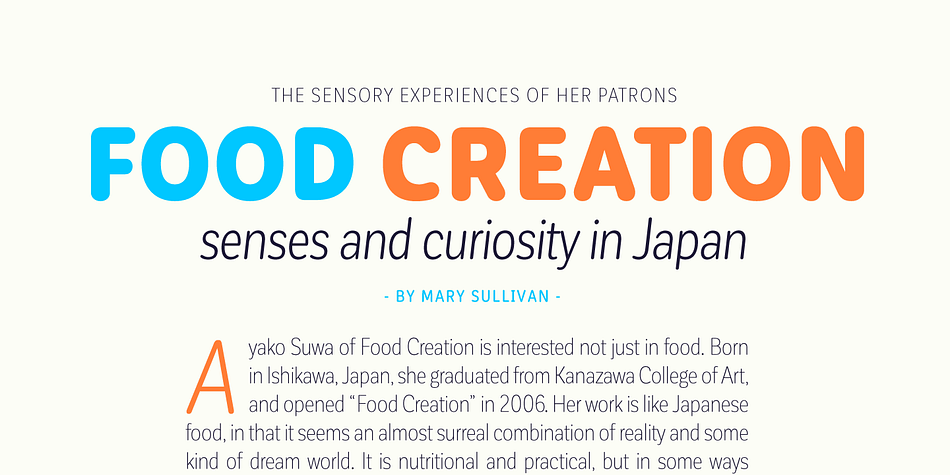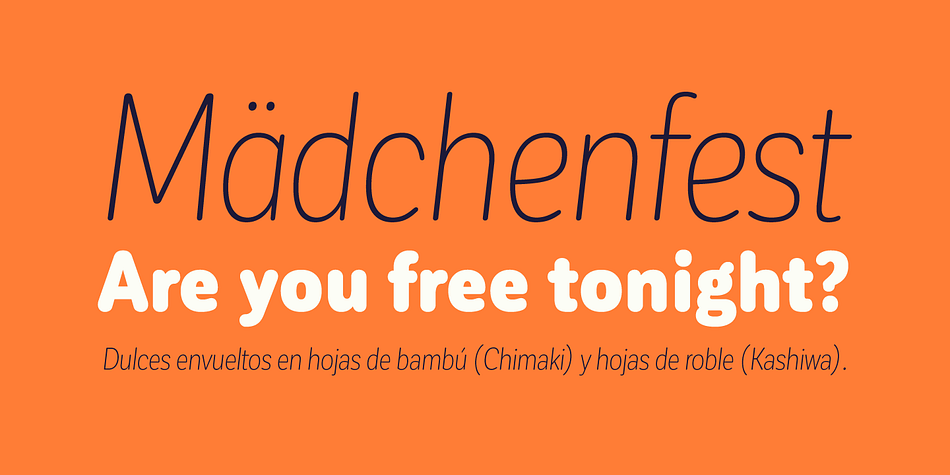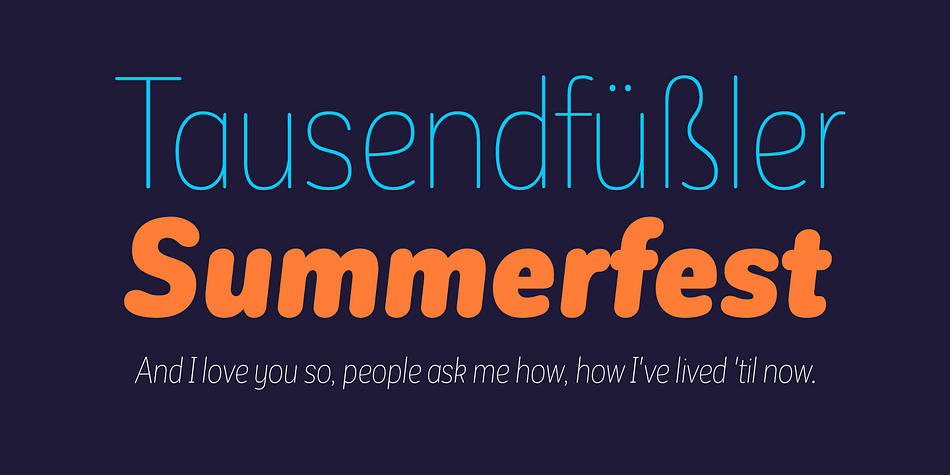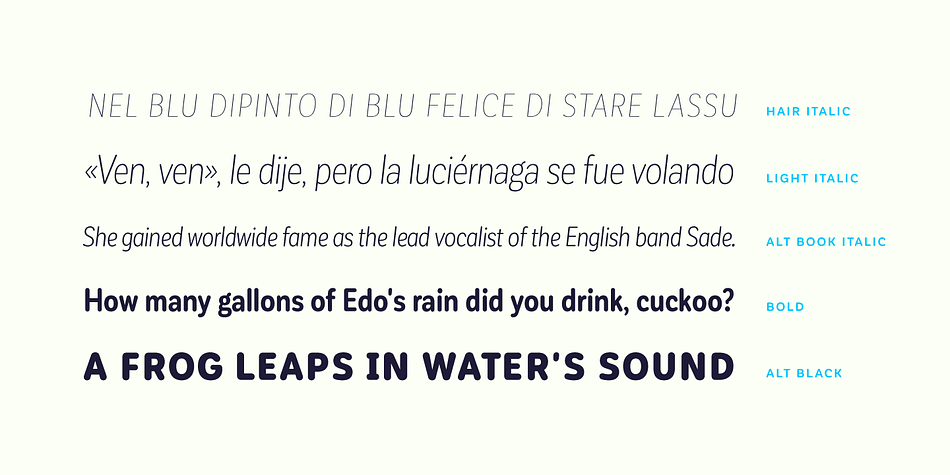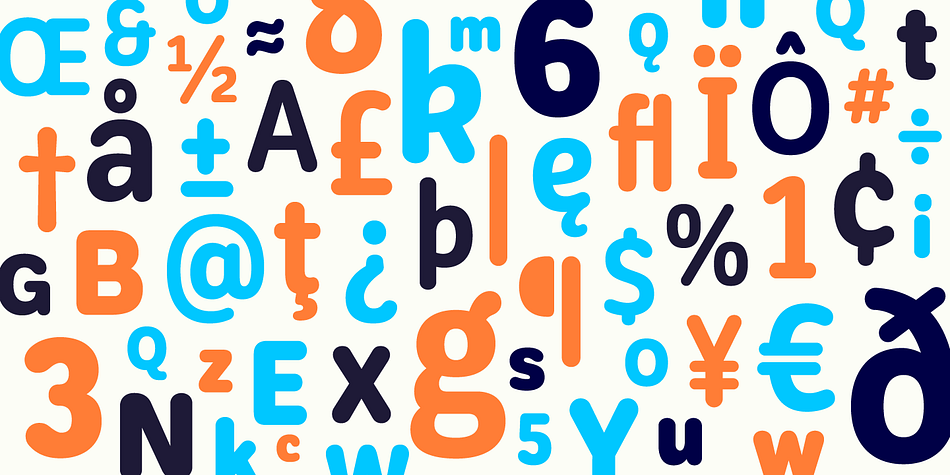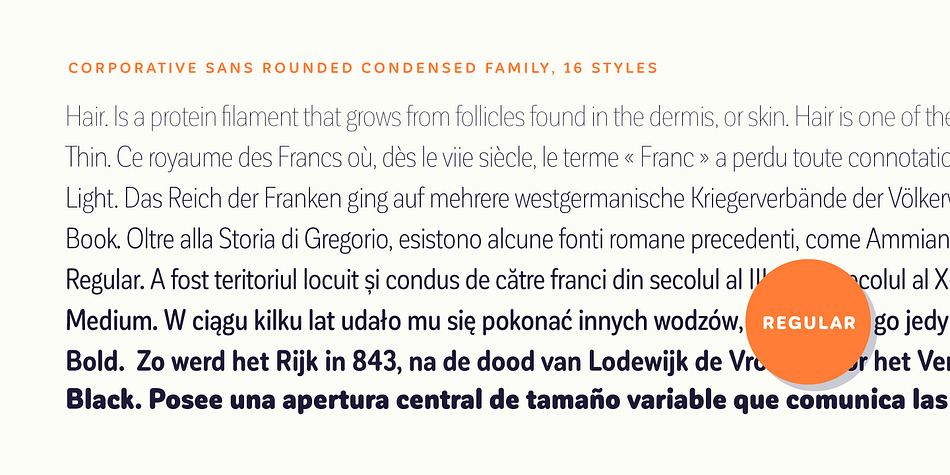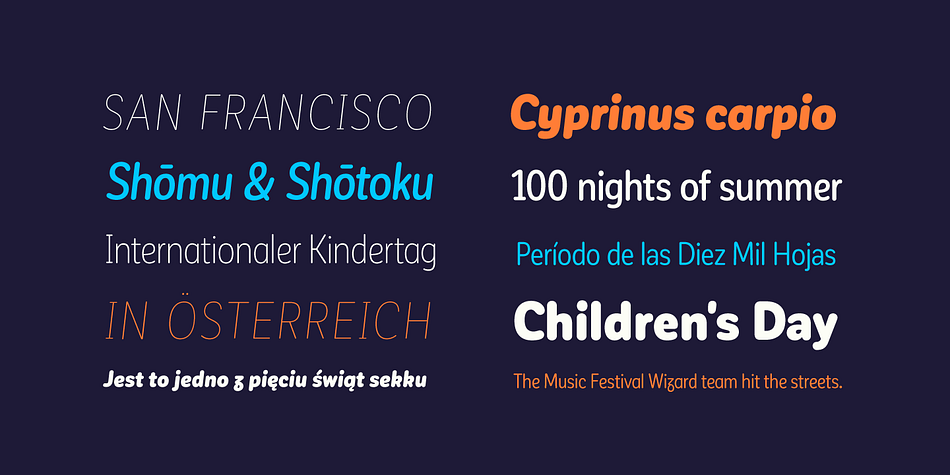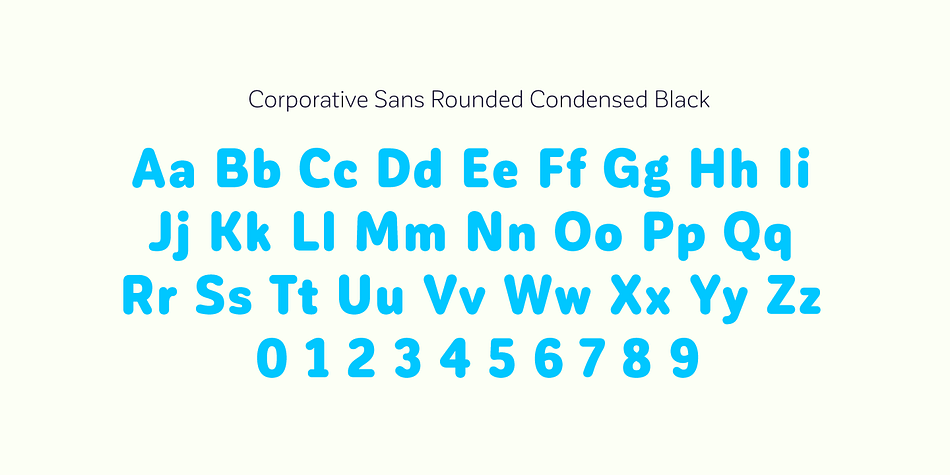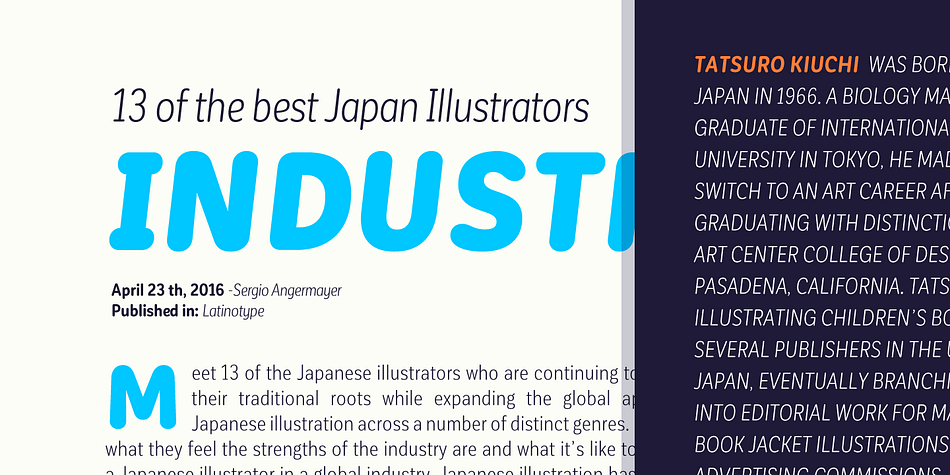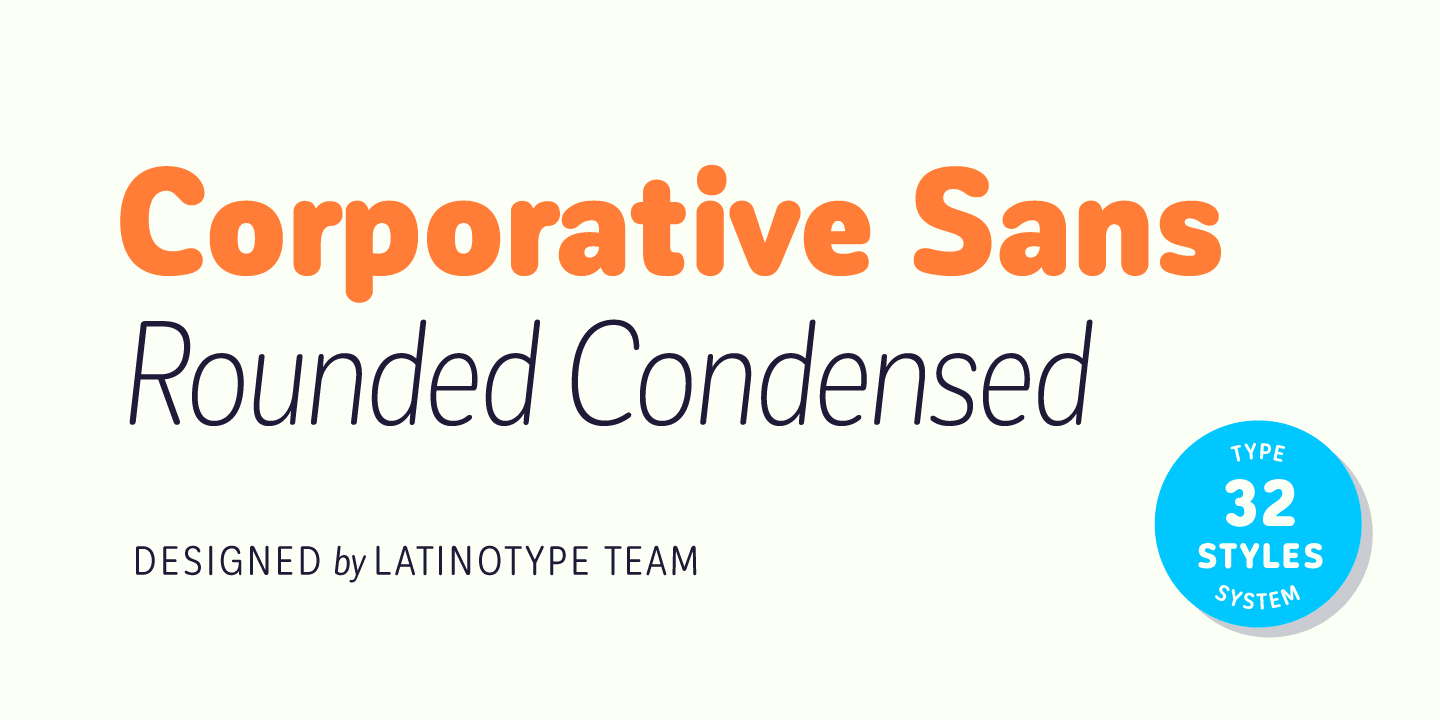
Designed by Latinotype Team, Corporative Sans Rounded Condensed is a sans serif font family. This typeface has thirty-two styles and was published by Latinotype.
Corporative Sans Rounded Condensed is the narrowed version of Corporative Sans Rounded that offers high performance when using for text, what makes it the perfect match for Andes Rounded!
The font works well at both display and small sizes. Corporative Sans Rounded Condensed is the perfect choice for logotypes, posters, signs, branding, packaging and so on!
Corporative Sans Rounded Condensed comes with Latinotype’s standard set of 350 characters, making it possible to use the font in 128 different languages.
Corporative Sans Rounded Condensed provides users with a wide range of characters and weights for every project. By combining different variants, designers can achieve the best results.
The family consists of 32 fonts: a basic family that includes 8 weights plus italics and an alternative family of 8 weights with matching italics as well.
Corporative Sans Rounded Condensed was created by Latinotype Team and developed by Elizabeth Hernández and Rodrigo Fuenzalida, under the supervision of Luciano Vergara and Daniel Hernández.